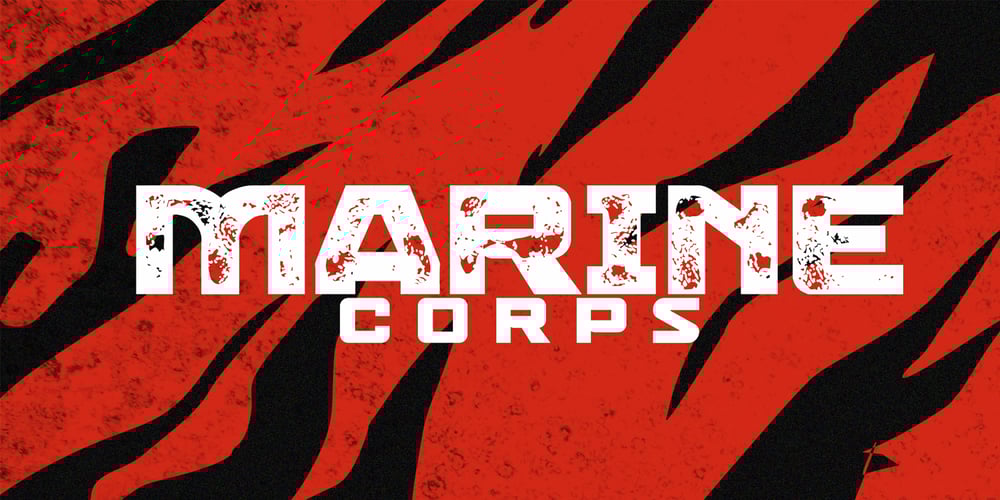
Marine Corps Font Family was designed by Muhammad Afif Ersya and published by Mevstory Studio. Marine Corps contains 3 styles and family package options. Get ready to explore cutting-edge typography with Marine Corps, an incredible Industrial Sans Serif Font designed to bring a strong mechanical vibe to your projects. Marine Corps is a font that reflects the strength and rigor of the industrial world. This font was inspired by a warship I saw in person.This font is designed with three styles: Marine Corps Regular Marine Corps in line Marine Corps stamp